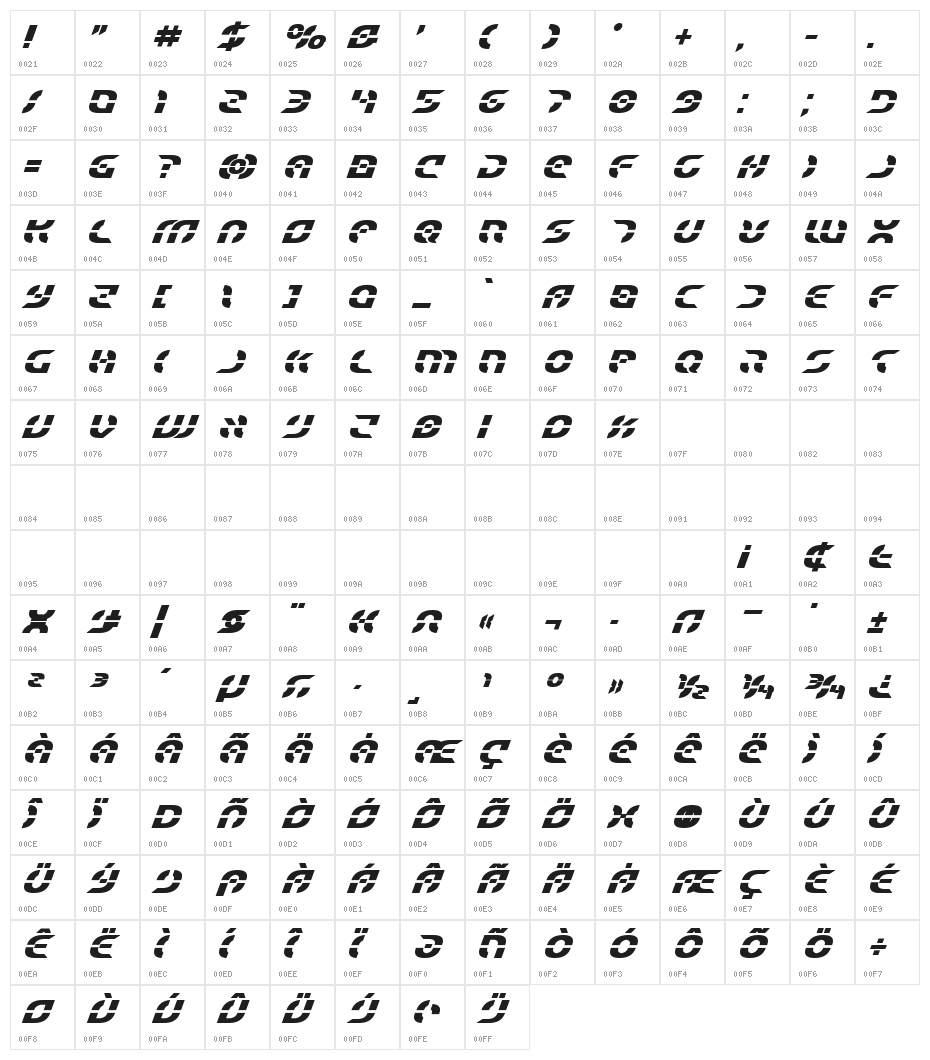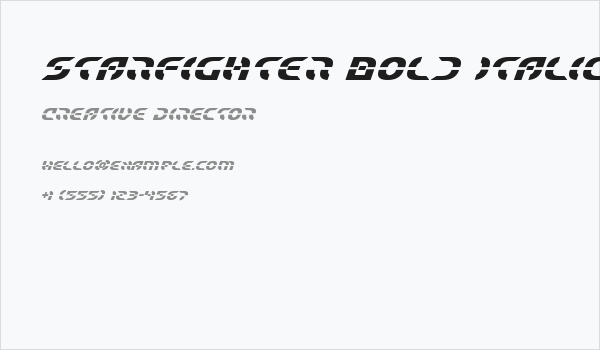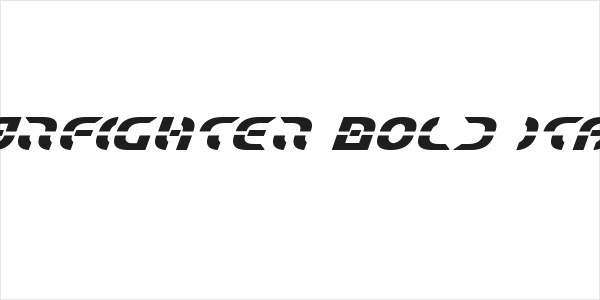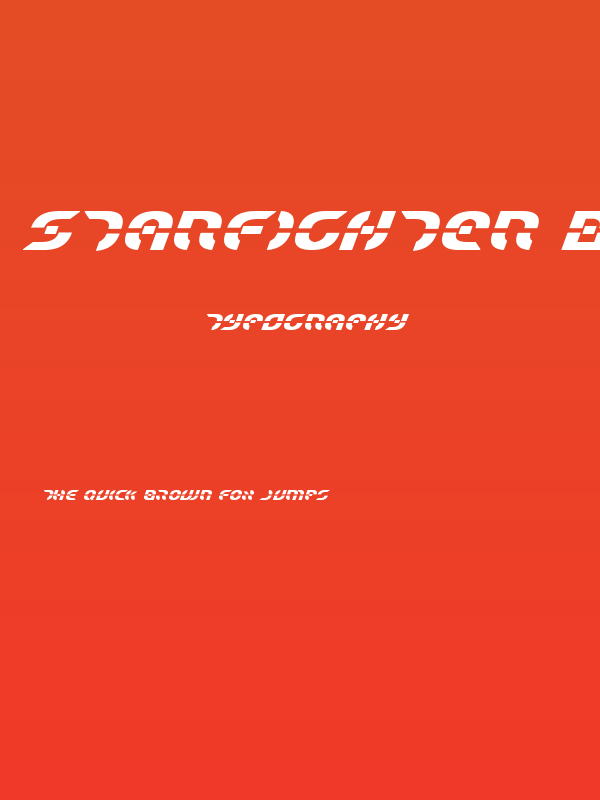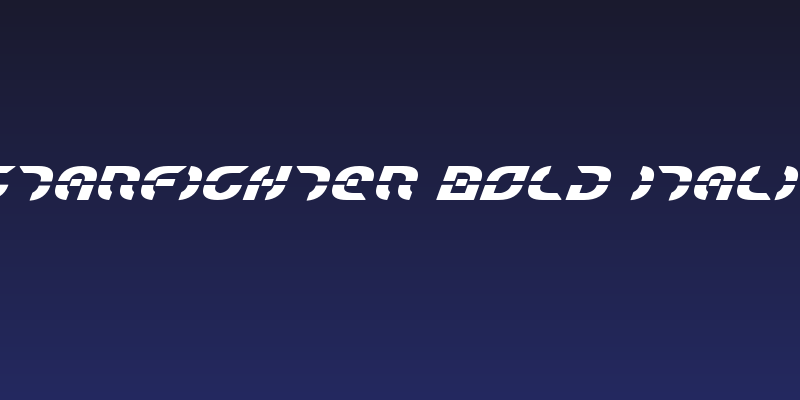
Starfighter Bold Italic Font
Starfighter Bold Italic Description
This font features a futuristic and bold design with a distinct italic slant, giving it a dynamic and forward-moving appearance. The characters are constructed with geometric shapes, creating a sense of speed and modernity. The bold weight enhances its presence, making it suitable for impactful headlines and titles. The italic style adds an element of motion, while the consistent stroke width maintains a uniform look across all characters. The font's unique style is characterized by its sharp angles and cut-out sections, which contribute to its high-tech aesthetic. This design is ideal for projects that require a contemporary and edgy feel.